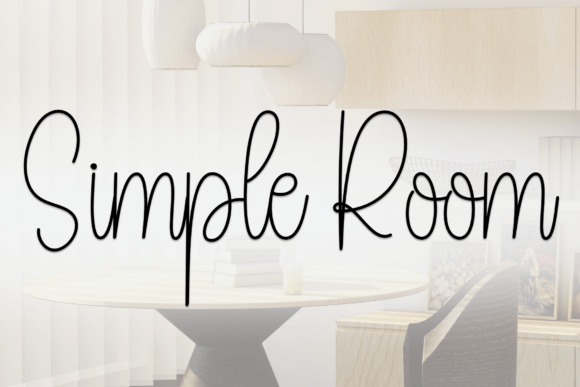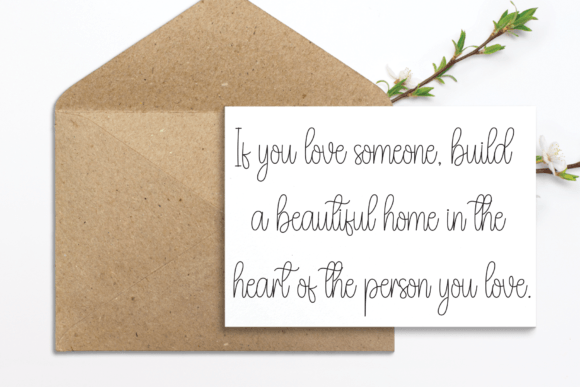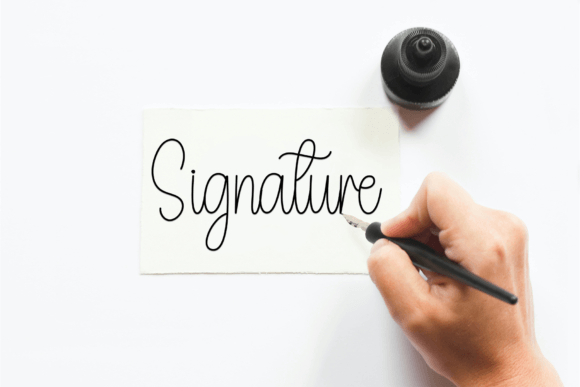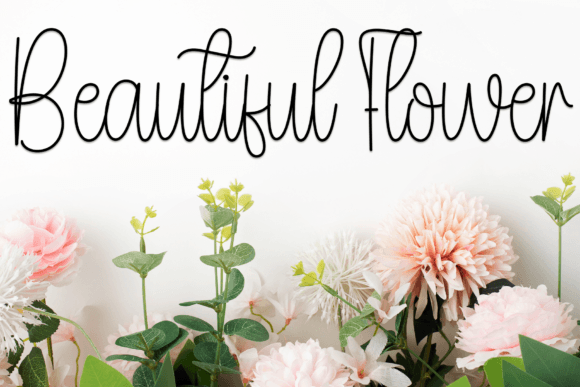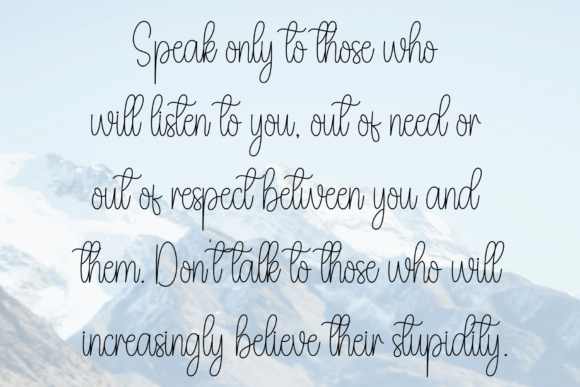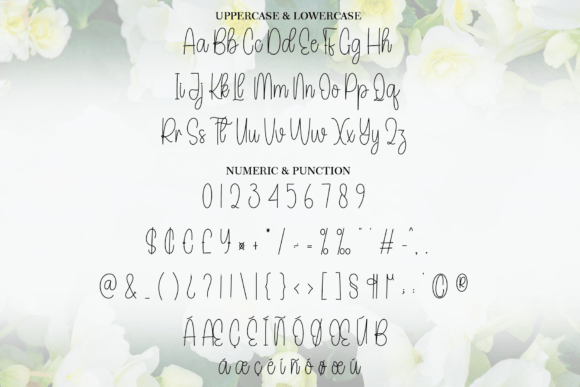
The Begonias Font: A Whimsical Touch for Your Creations
As a designer, have you ever been stuck in a creative rut, searching for that perfect font to bring your vision to life? I know I have. One day, while browsing through a collection of script fonts, I stumbled upon the Begonias Font. Its delicate curves and intricate details immediately caught my attention, and I knew I had to learn more.
The Begonias Font is a charming script and handwritten typeface that adds a touch of elegance and whimsy to any design. Its beauty lies in its ability to capture the essence of blooming flowers, making it perfect for invitations, stationery, branding, and projects that desire a romantic and dreamy aesthetic. Whether you’re a seasoned designer or just starting out, the Begonias Font is a valuable addition to your toolkit, offering endless possibilities for creativity and self-expression.
Begonias Font Key Features
- Font Family: Begonias
- Unique Characteristic: Begonias features a unique blend of elegant and modern script elements, making it ideal for creative projects and designs that require a touch of sophistication.
Begonias Font Review
I recently had the chance to work with the Begonias font, and I must say it’s a unique and intriguing typeface. Here’s my honest review:
- Beautiful Brush Script Style: Begonias boasts a stunning brush script style that’s perfect for adding a touch of elegance and sophistication to your designs.
- Extensive Character Set: Begonias has an extensive character set, making it suitable for a wide range of languages and use cases.
- Limited Font Sizes: The font doesn’t perform well at very small font sizes, which may be a concern for designers who need to use it in tight spaces.
- Not Ideal for Body Text: Begonias is better suited for titles and headings, as its brush script style can be distracting when used for large blocks of body text.
Overall, I think Begonias is a great addition to any designer’s toolkit, but it’s essential to use it judiciously. With its unique style and high-quality raster images, it’s perfect for adding a touch of elegance to your designs. Just be mindful of its limitations, and you’ll be golden.
For best results, use Begonias Font for headings and titles to add a touch of elegance to your design.
Begonias Font is ideal for:
Remember to use Begonias Font sparingly to avoid overwhelming your design with too much text.
Alternatives to Begonias Font
Playfair Display is a luxurious and elegant serif font, ideal for use in high-end branding, magazine headings, and wedding invitations. It features a classical feel with refined details and ornate flourishes, making it perfect for adding sophistication to your designs.
Comparison to Begonias Font: While Begonias Font has a softer, more subtle look, Playfair Display is more dramatic and attention-grabbing. Playfair Display is better suited for use in larger font sizes and headings, whereas Begonias Font is more versatile and can be used in a variety of contexts.
Great Vibes is a modern, elegant script font, ideal for use in branding, invitations, and packaging. It features a flowing, cursive design with a touch of sophistication and a hint of whimsy, making it perfect for adding a personal touch to your designs.
Comparison to Begonias Font: While Begonias Font has a more traditional look, Great Vibes is more contemporary and trendy. Great Vibes is better suited for use in creative, artistic contexts, whereas Begonias Font is more versatile and can be used in a variety of settings.
Merriweather is a classic, traditional serif font, ideal for use in book typography, academic settings, and formal documents. It features a timeless design with a strong, solid feel, making it perfect for adding a sense of stability and trust to your designs.
Comparison to Begonias Font: While Begonias Font has a softer, more subtle look, Merriweather is more formal and traditional. Merriweather is better suited for use in formal, academic contexts, whereas Begonias Font is more versatile and can be